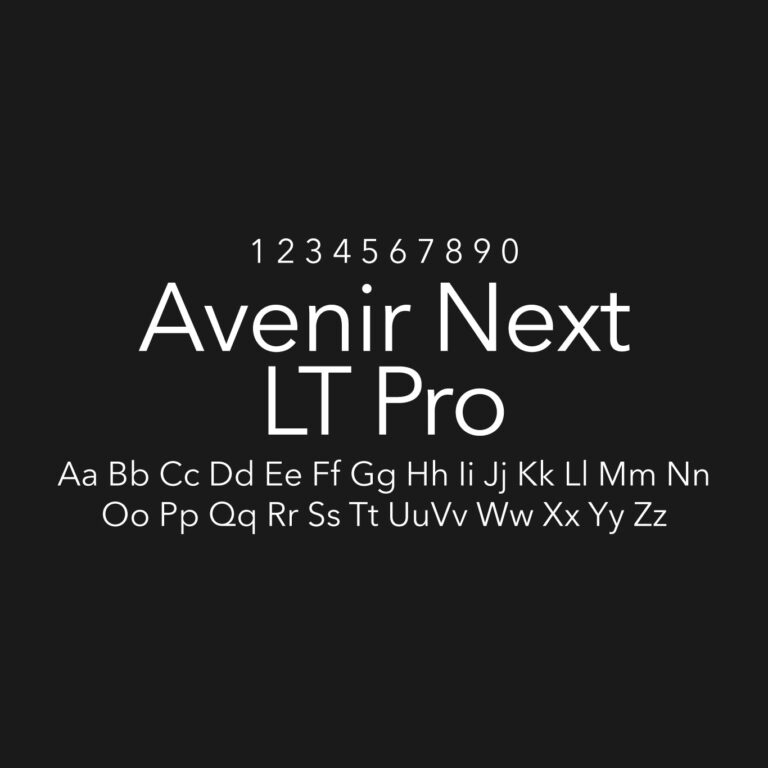
Avenir Next LT Pro is a refined version of the classic Avenir typeface, combining geometric structure with a warmer humanist feel. Its balanced shapes, clean spacing and wide range of weights make it useful for branding, logo concepts, user interfaces, editorial layouts, posters, presentations, packaging, signage and corporate design systems.
Font Name: Avenir Next LT Pro
Font Type: Sans Serif
Category: Geometric / Humanist Sans Serif
Visual Style: Clean, geometric, modern, balanced, professional
Best For: Branding, logos, UI design, editorial layouts, posters, packaging, presentations and corporate identity systems
Designer: Adrian Frutiger and Akira Kobayashi
Original Typeface: Avenir